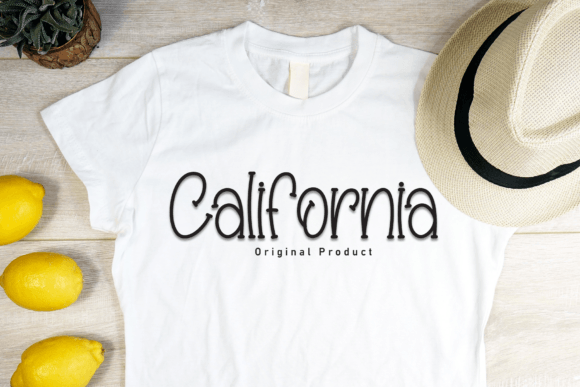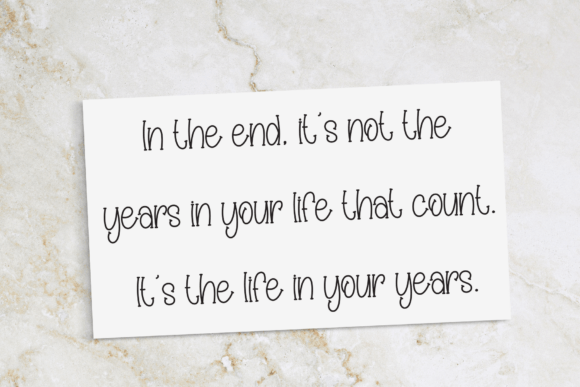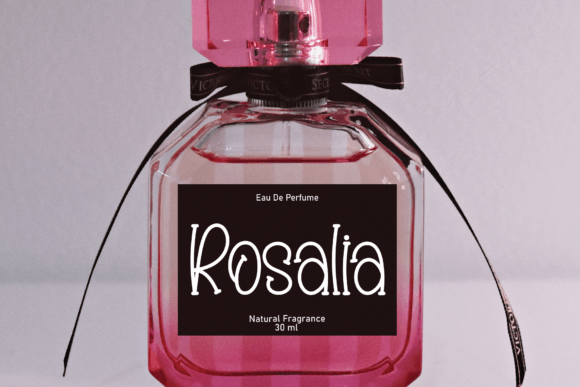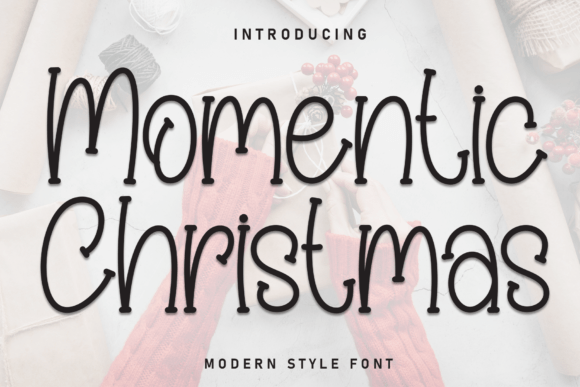
Introduction to Momentic Christmas Font
Momentic Christmas is a sweet and friendly handwritten font.
Why Choose Momentic Christmas Font?
Momentic Christmas Font offers exceptional quality and versatility, making it a valuable addition to your design toolkit. Whether you’re creating for personal projects or commercial use, Momentic Christmas Font delivers professional results.